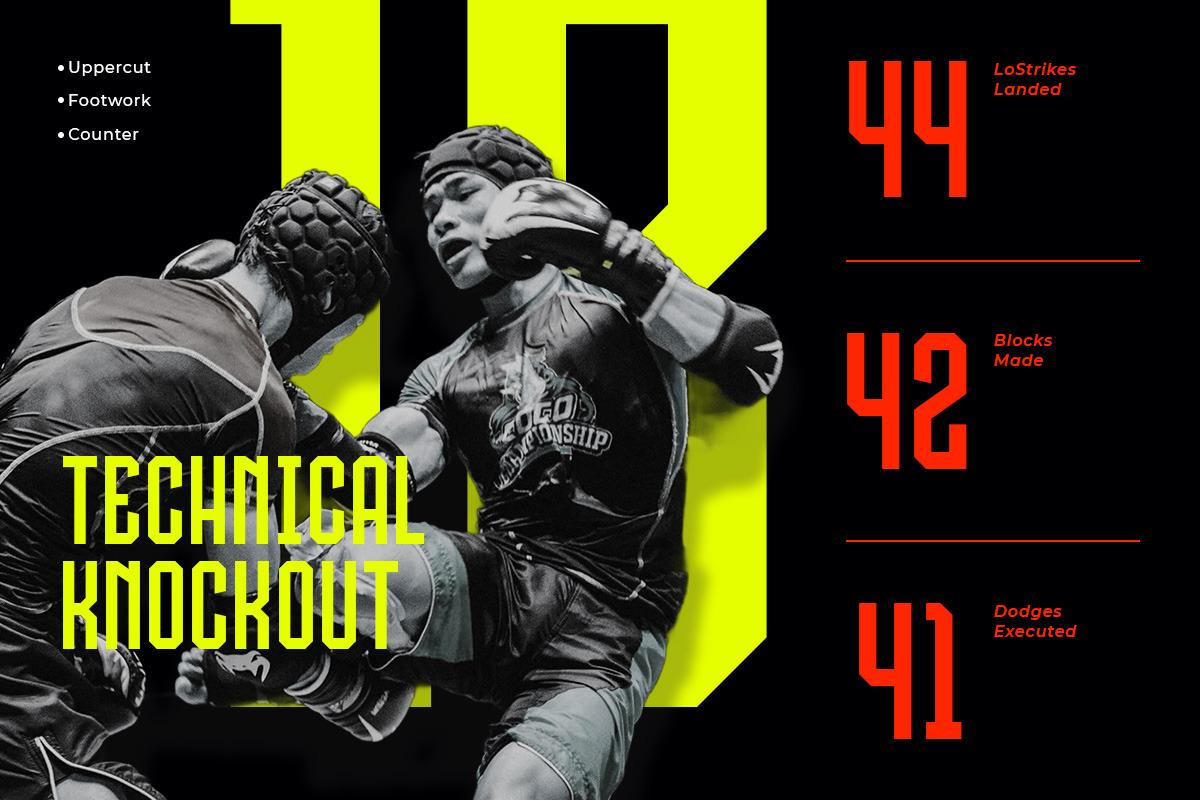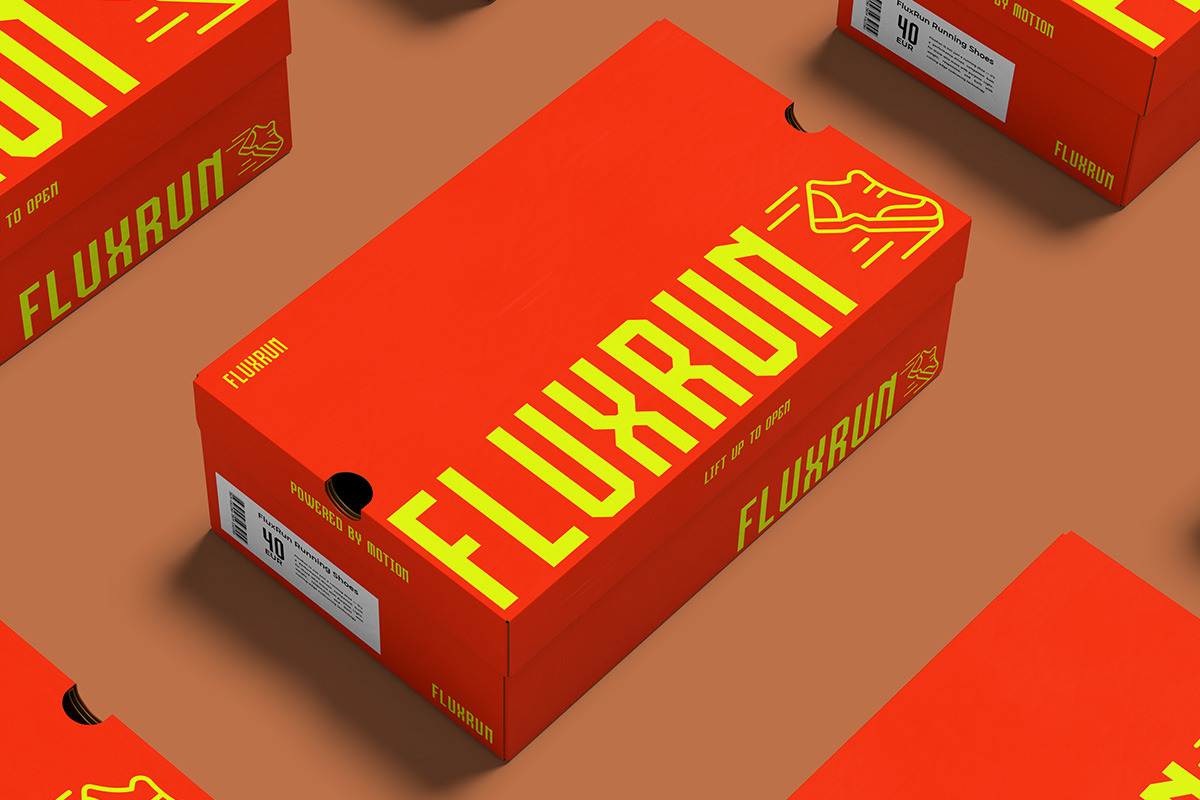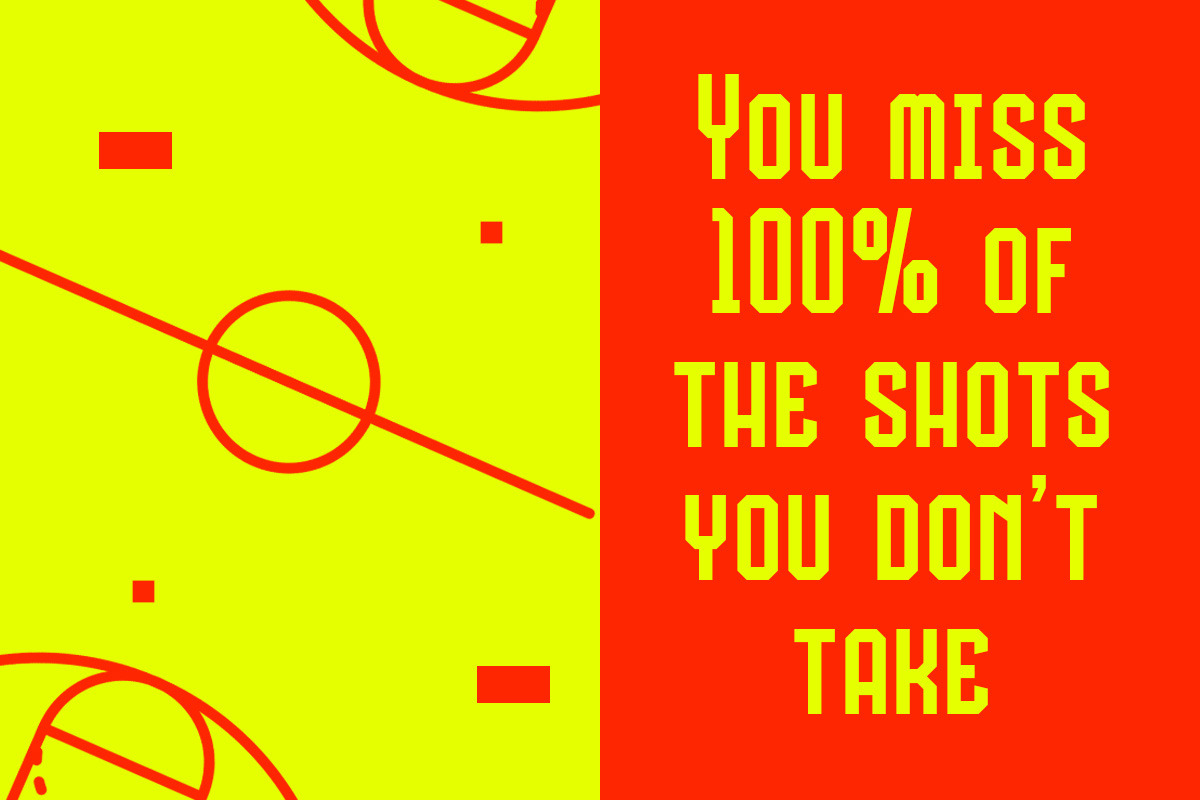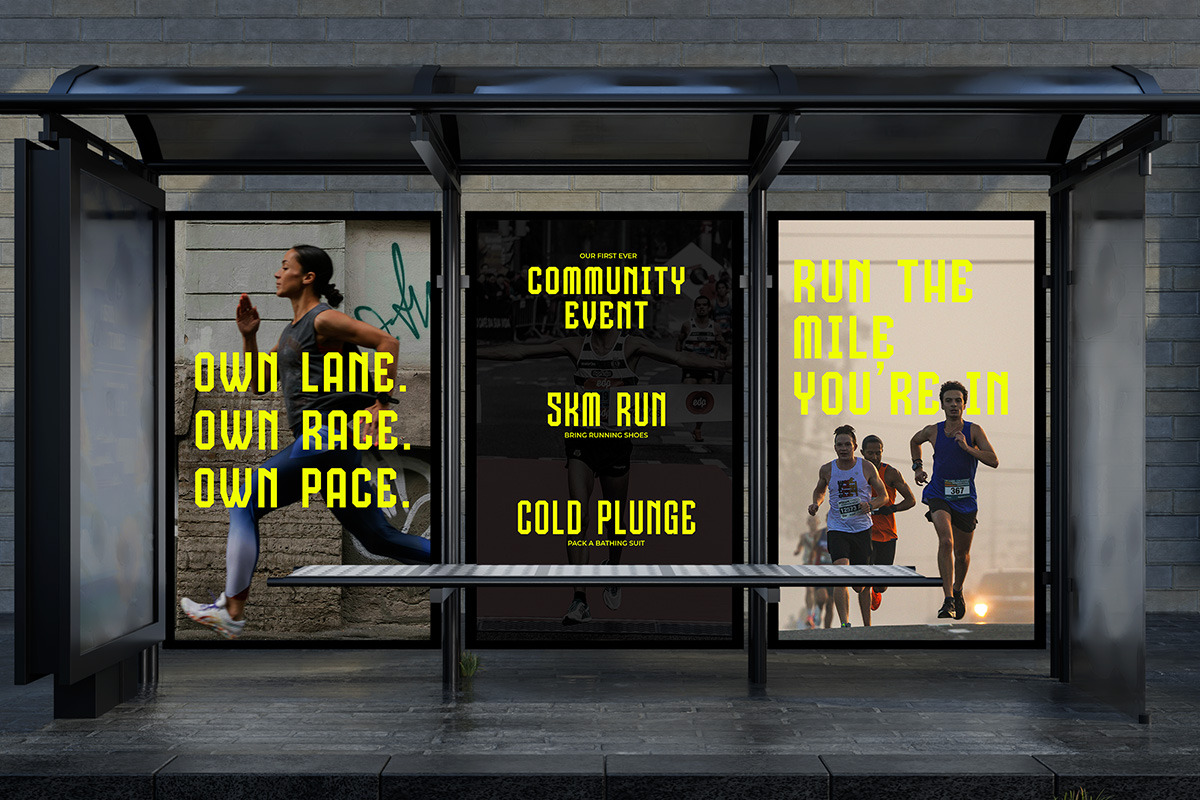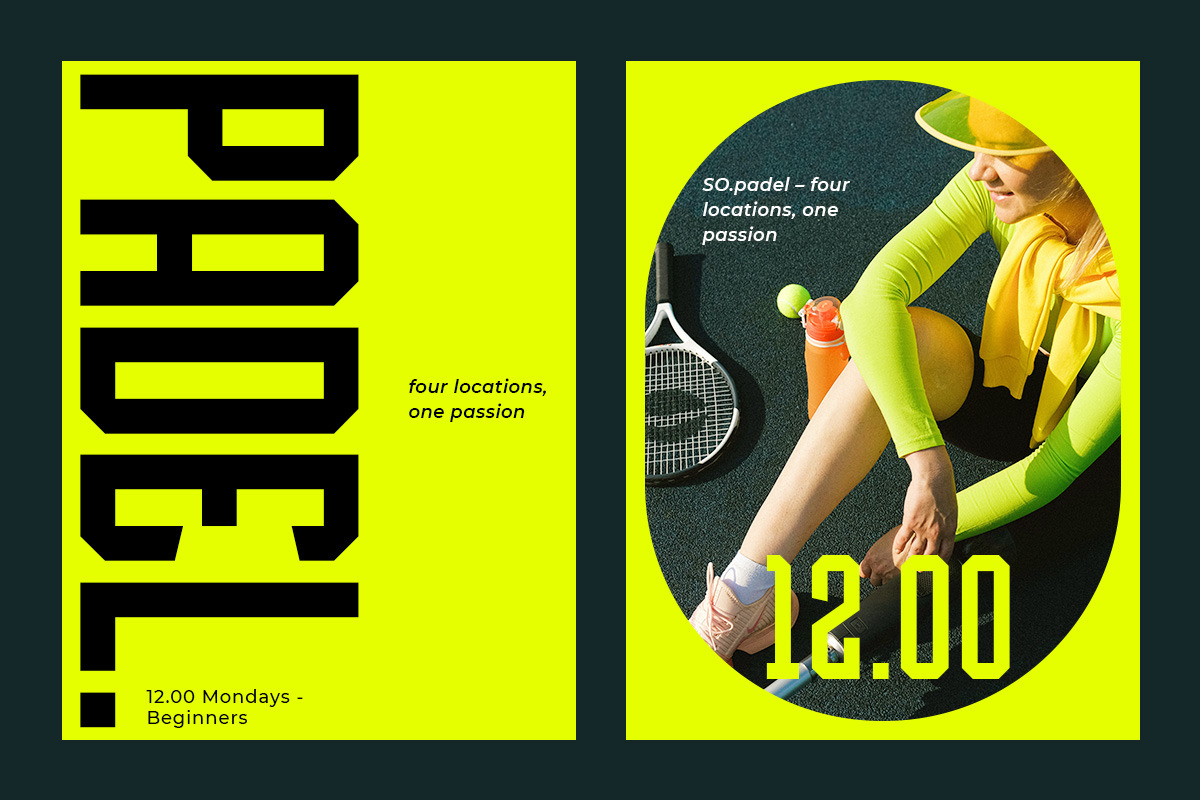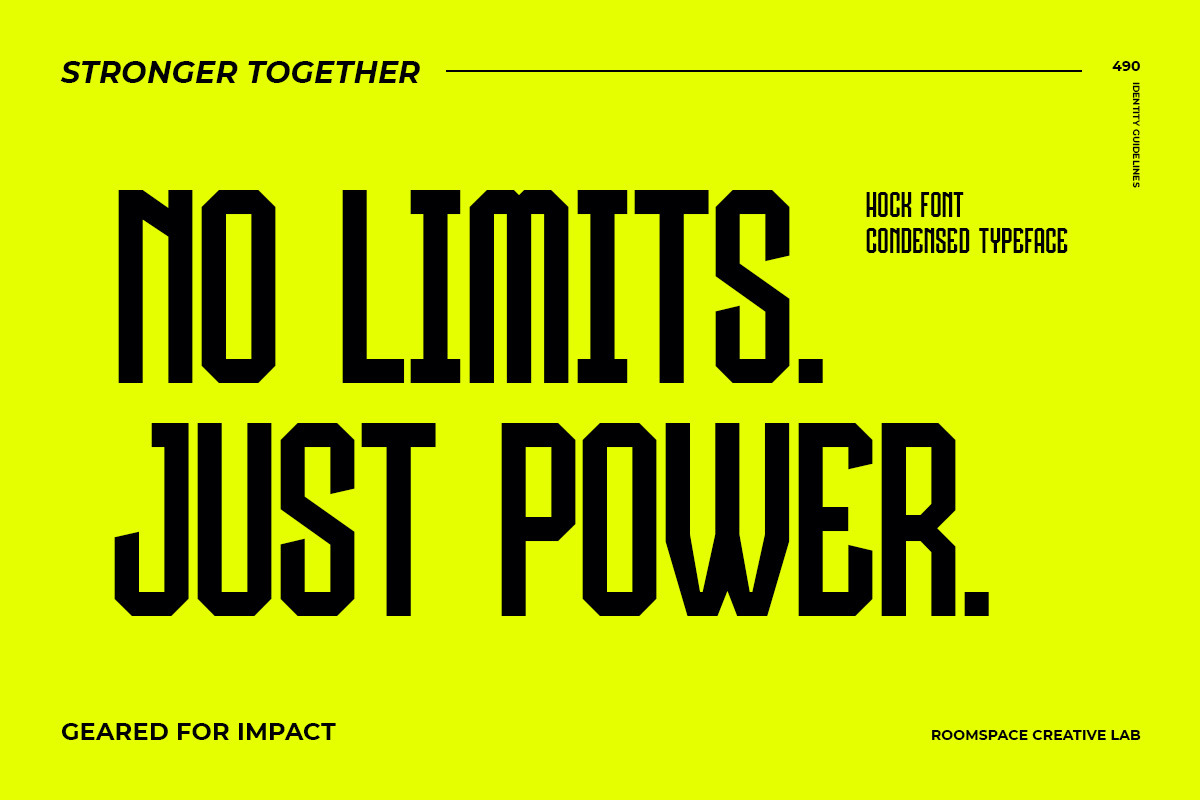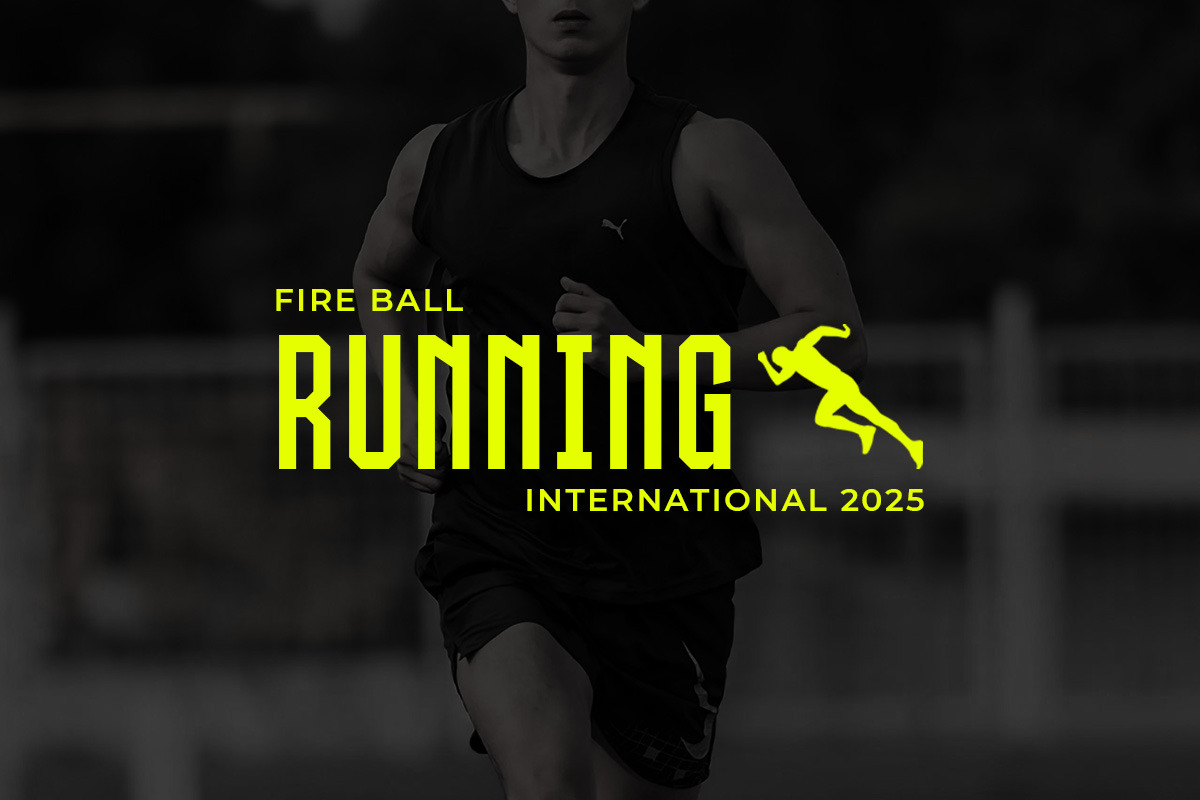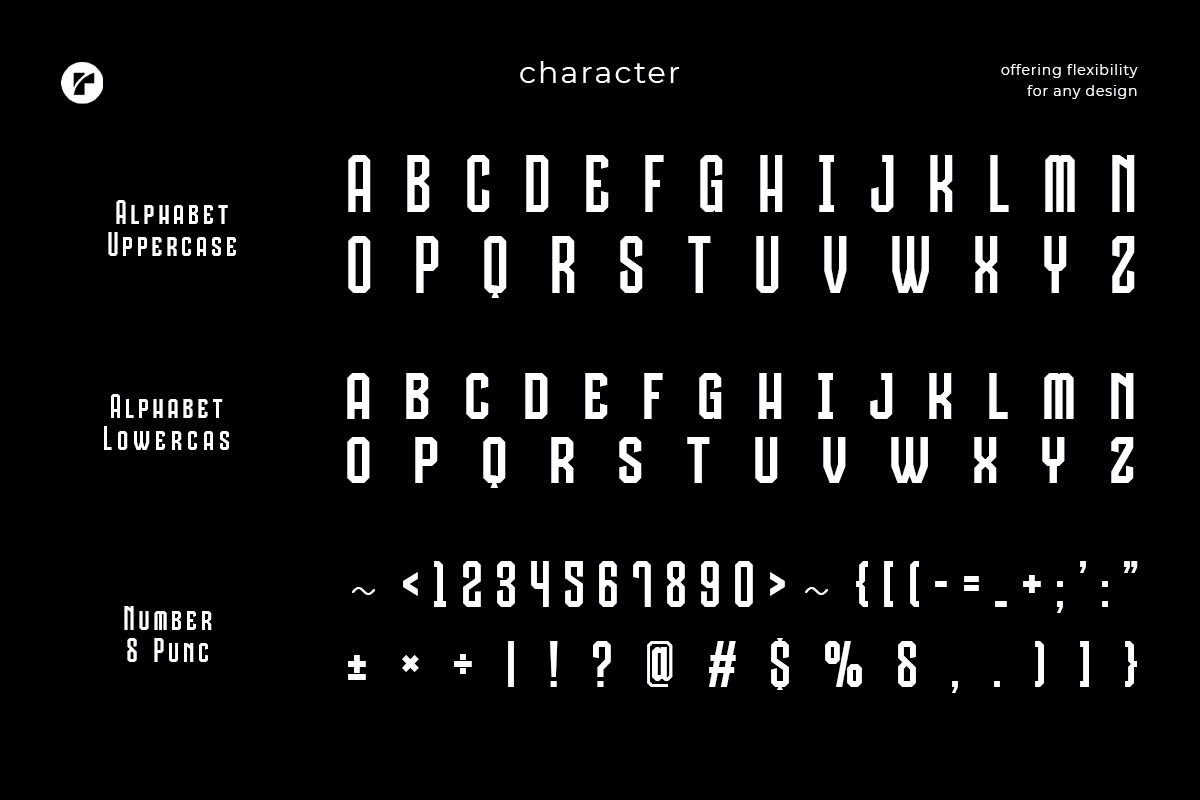
Hock- Modern Condensed Brutal Sport
HOCK is a condensed sans-serif typeface engineered for high-impact visual messaging. With its tight, vertical proportions and sharp geometric forms, HOCK injects a sense of strength and tension into any layout. This makes it the ideal choice for athletic branding, action-themed designs, and anything that needs to hit hard and fast. Whether you’re designing for digital media or large-scale prints, this font brings precision and punch.
Its condensed structure allows designers to fit strong messaging into tight spaces without losing clarity or energy. HOCK is made for the hustle—where the pace is fast, the visuals are aggressive, and the stakes are high. The font thrives in sports marketing campaigns, fitness, team identities, and powerful typographic systems that require sharp consistency.
More than just a font, HOCK is a visual engine for bold creatives. With full multilingual support, strong uppercase dominance, and a tone that speaks in sweat and grit, it equips designers to build branding systems that are fearless and unforgettable. Get HOCK today and build a design voice that commands the room.